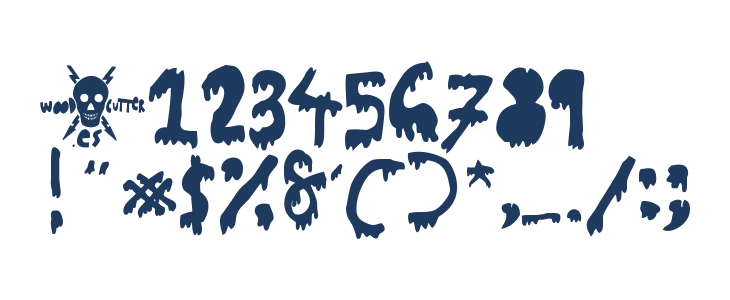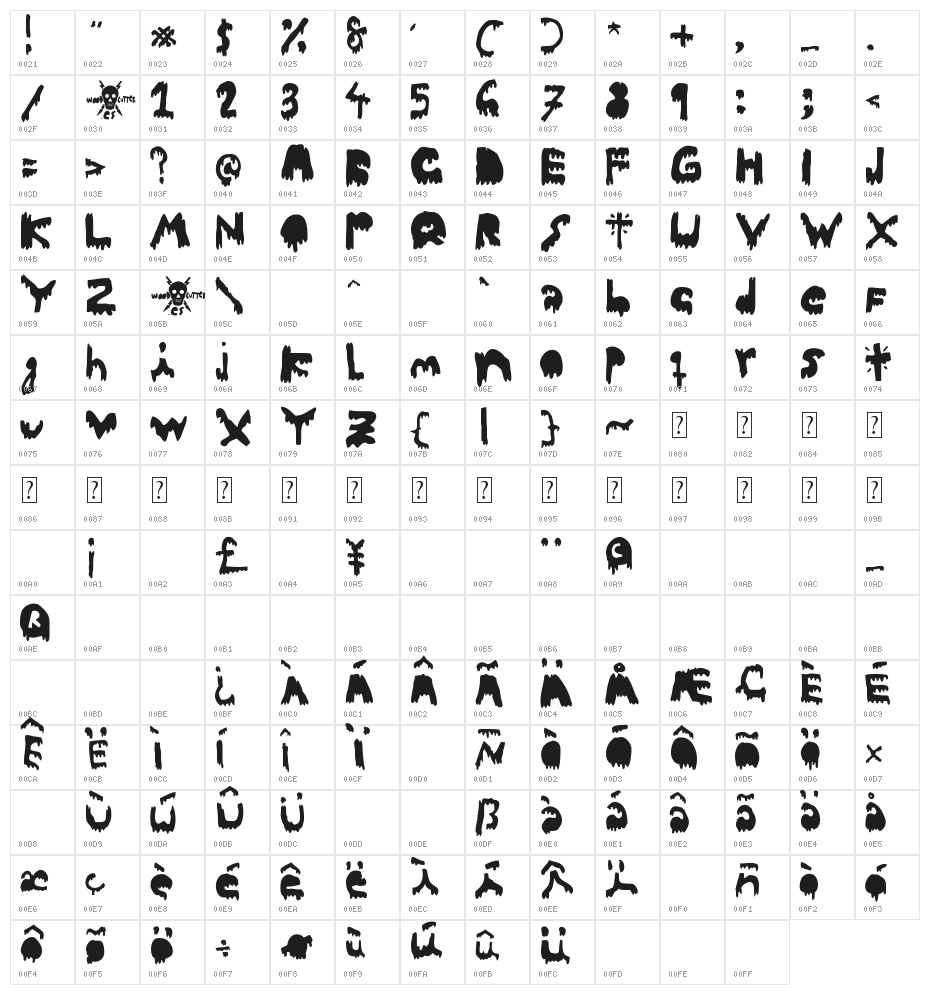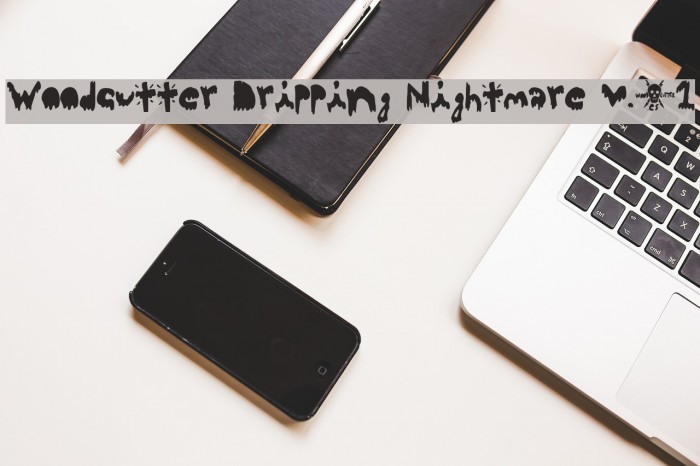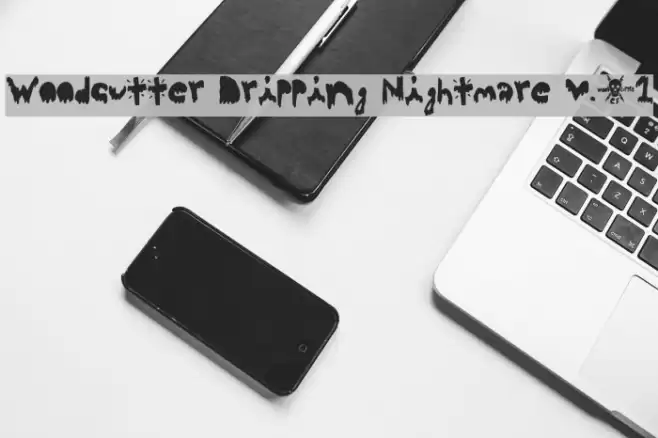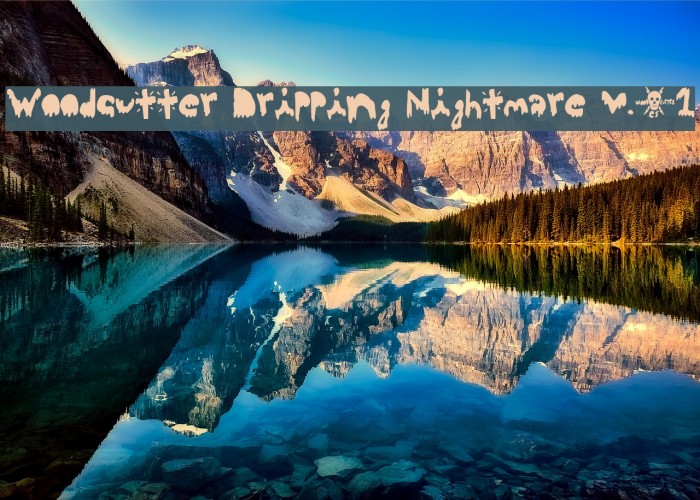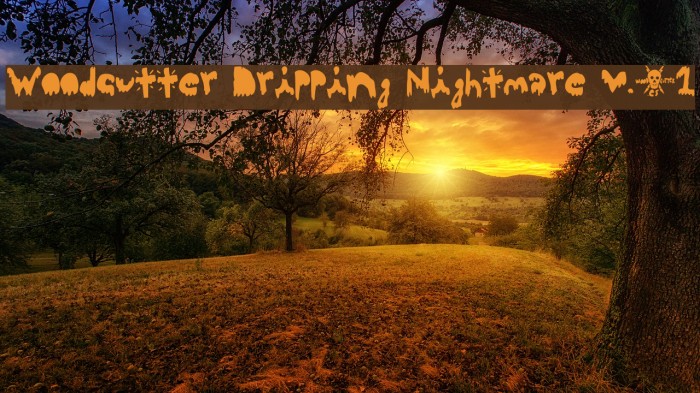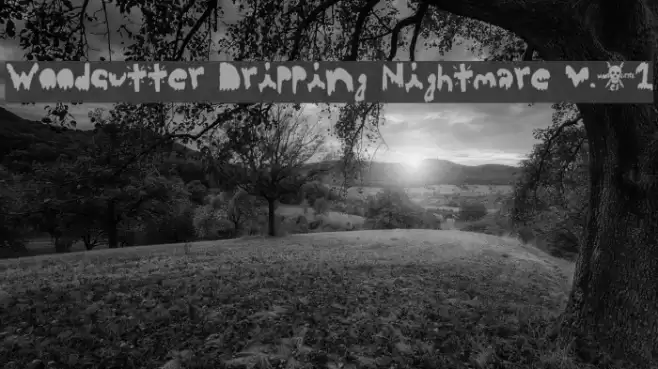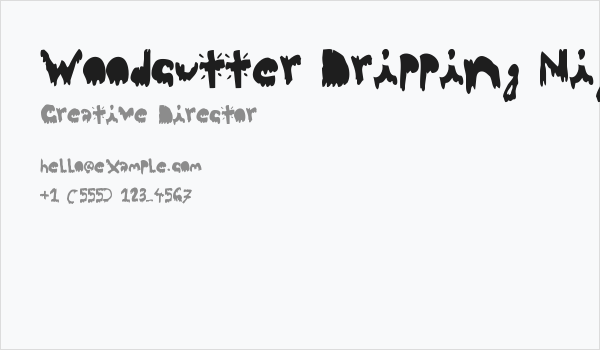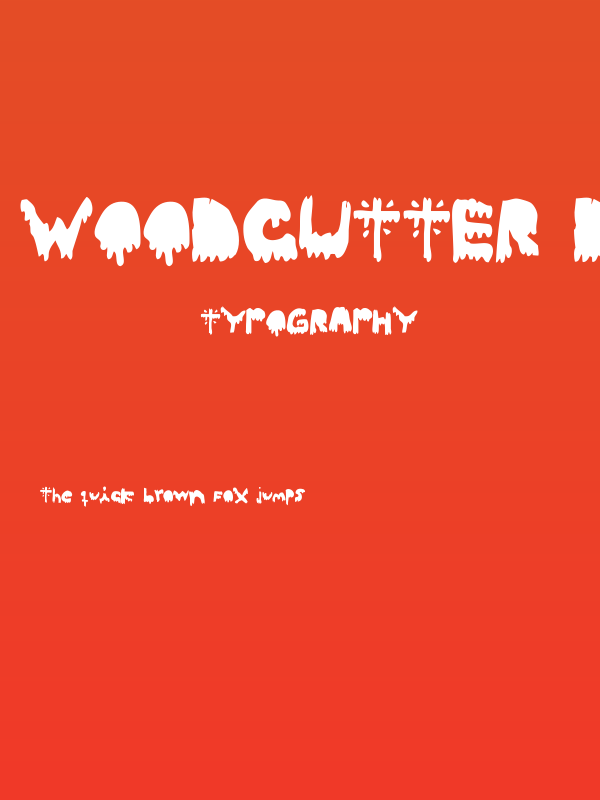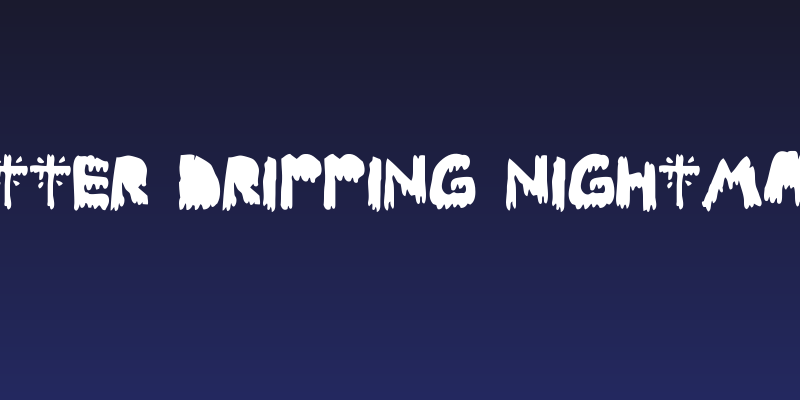
Woodcutter Dripping Nightmare v.01 Font
Woodcutter Dripping Nightmare v.01 Description
This font features a dripping, eerie style reminiscent of horror themes, making it ideal for Halloween or spooky projects. The characters appear as if they are melting or oozing, with irregular edges and a bold presence. The uppercase and lowercase letters maintain a consistent dripping effect, while numbers and special characters follow the same unsettling aesthetic. This design is highly decorative and captures attention with its unique and unsettling appearance.